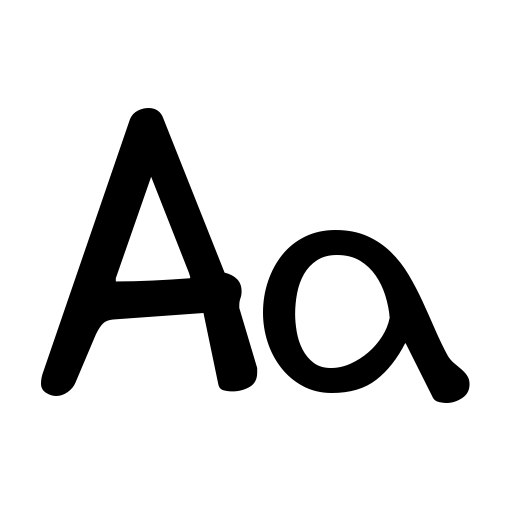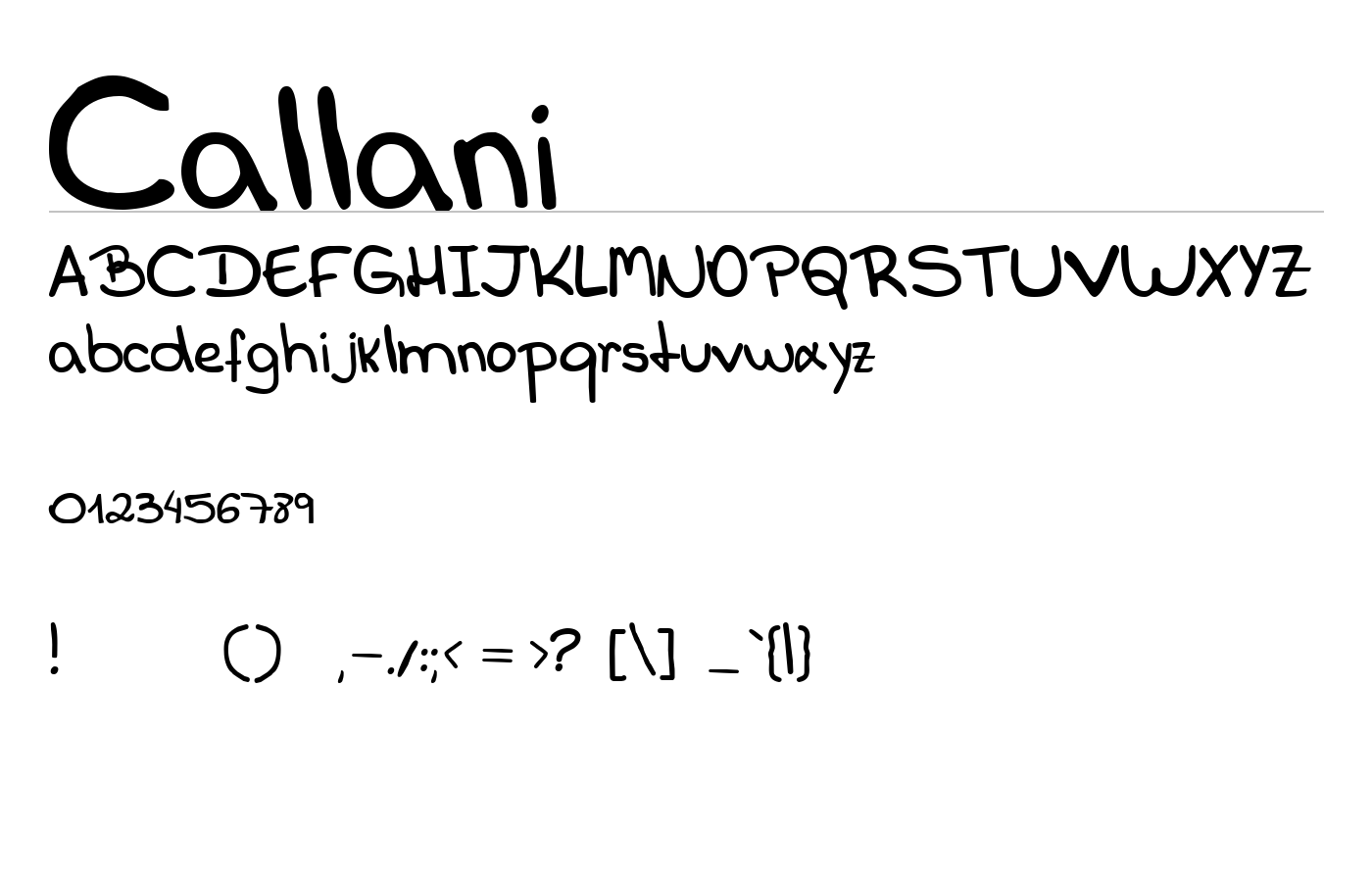
Callani is a playful handwritten sans serif font with a casual, approachable style. Its irregular, gently rounded letterforms and moderate x-height give it a friendly, informal feel, perfect for projects that want to convey warmth and creativity. This font works well for children’s books, invitations, greeting cards, and branding that aims for a personal touch.
Callani Font
About Callani Font
| Font family | Callani Font |
| Designer | Ana Calliari |